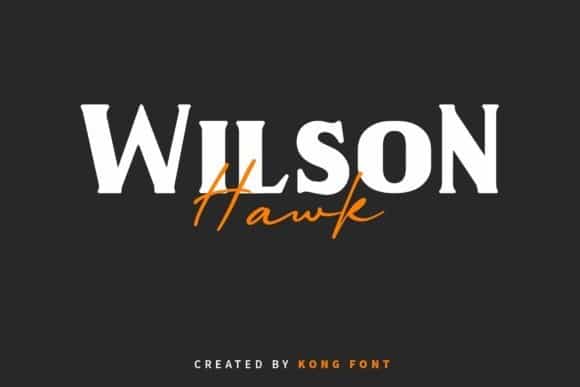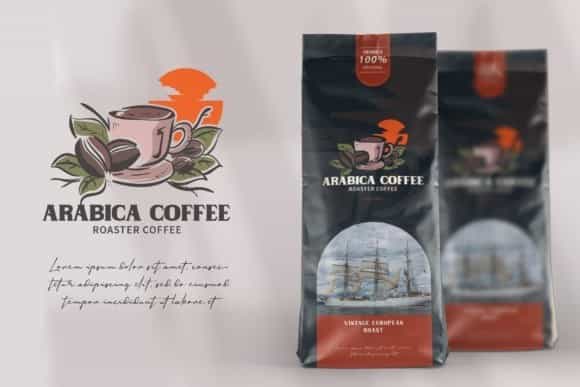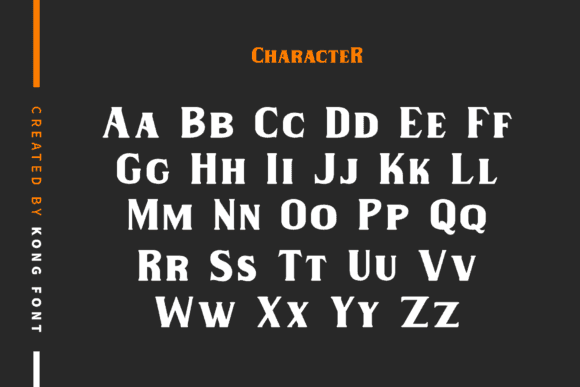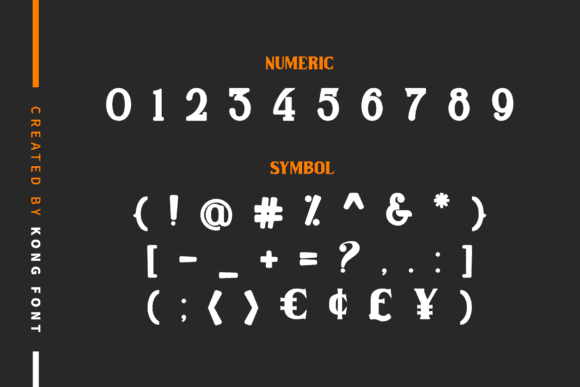
Wilson Hawk can be mentioned as one of the modern serif fonts that contains all the glyphs including the English alphabets. It goes very well with the SCRIPT, SIGNATURE or HANDWRITTEN styles.